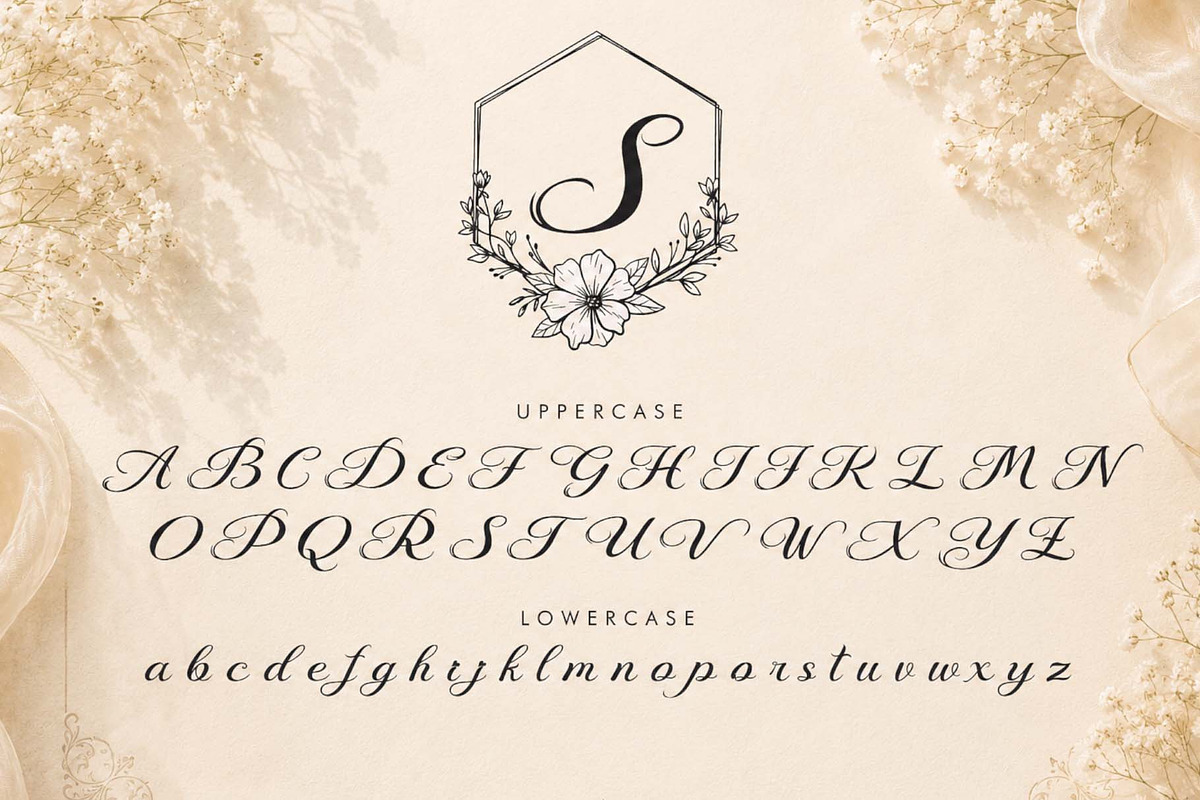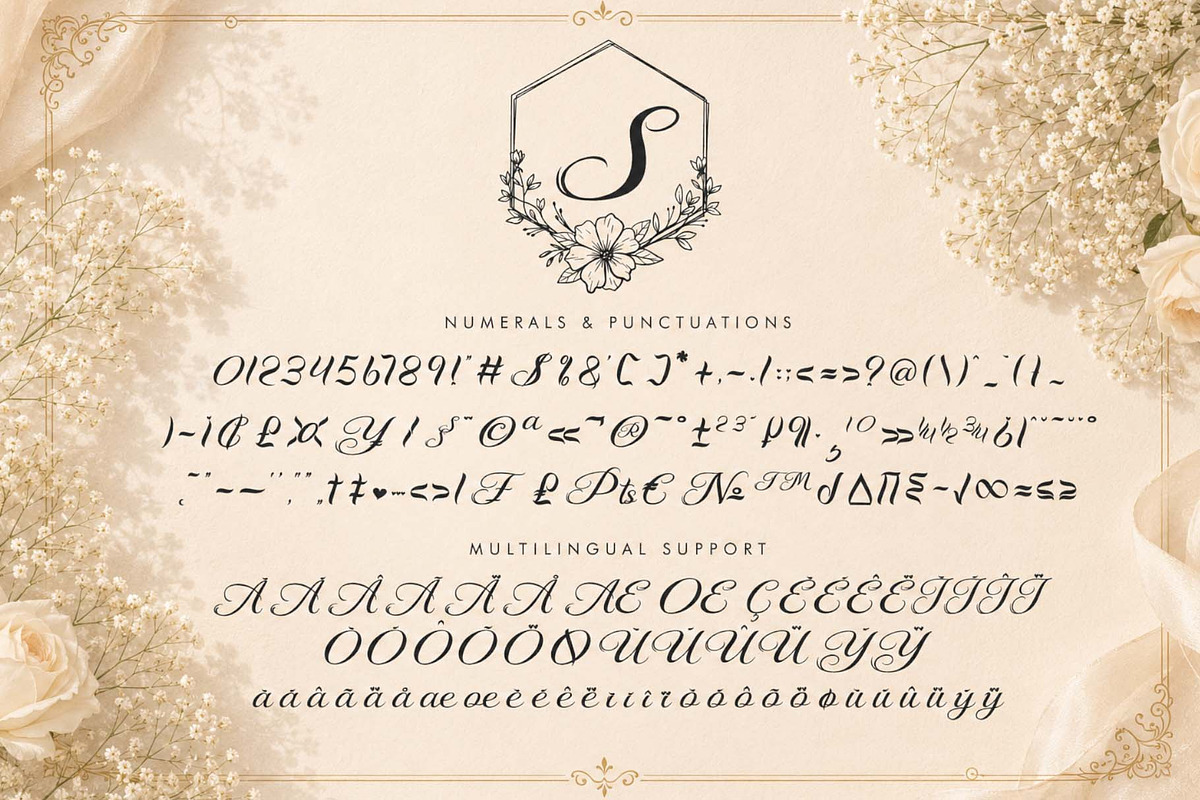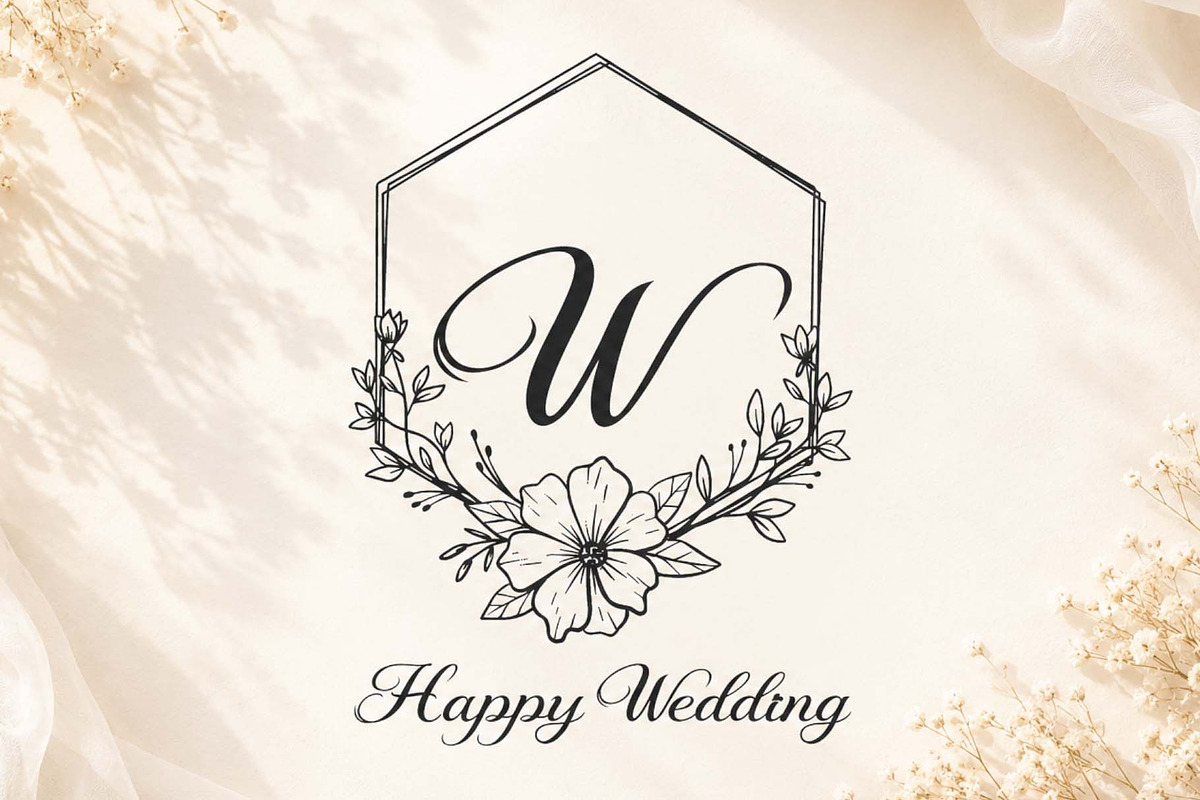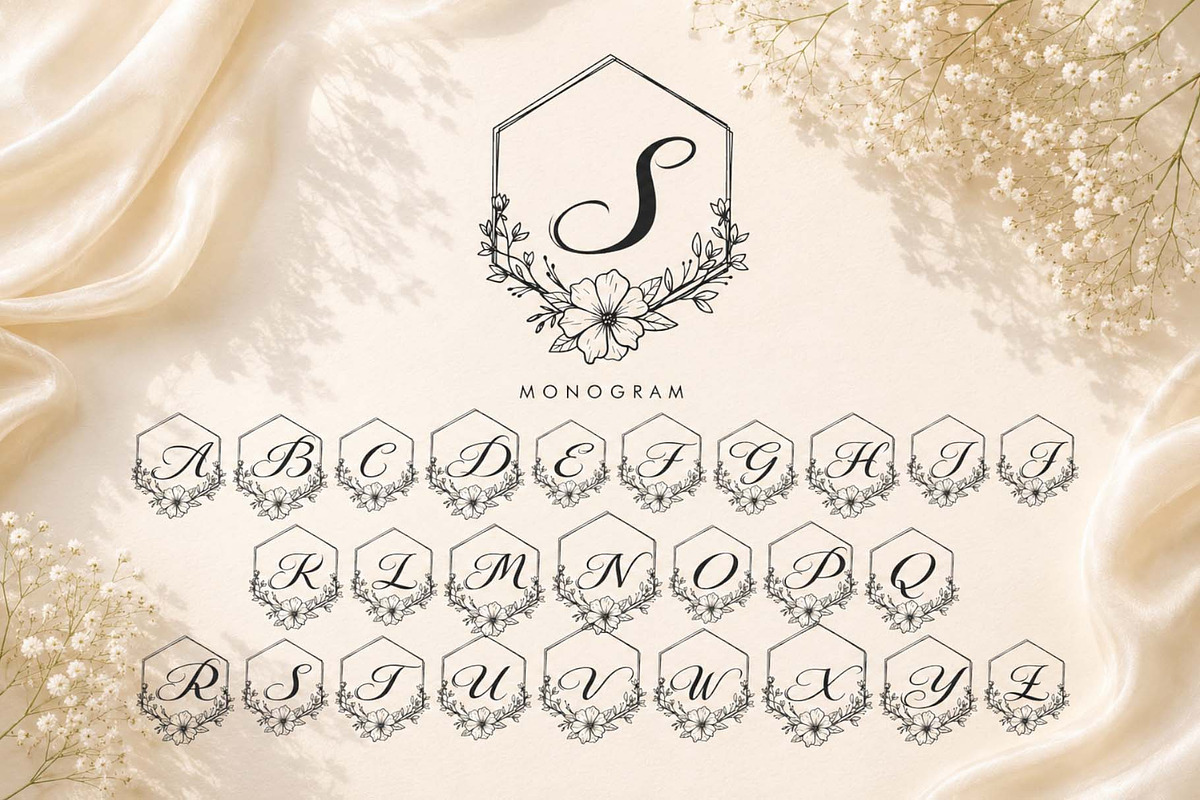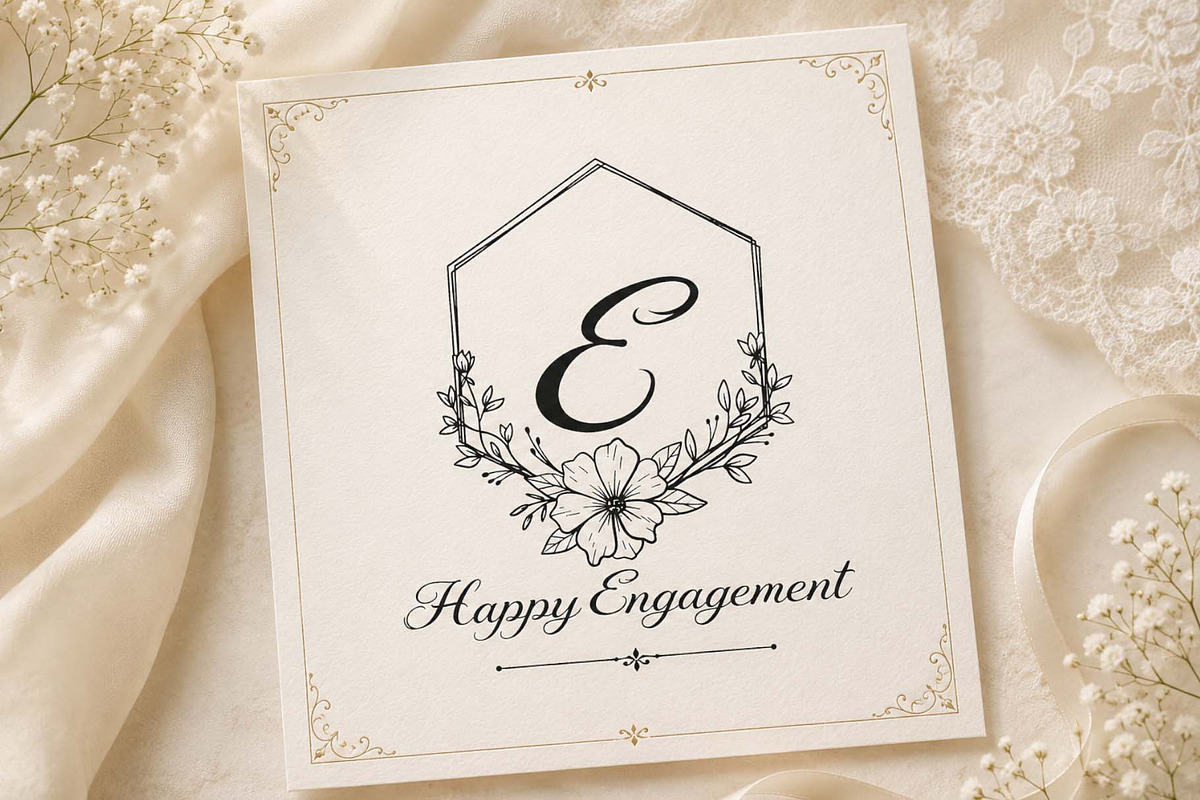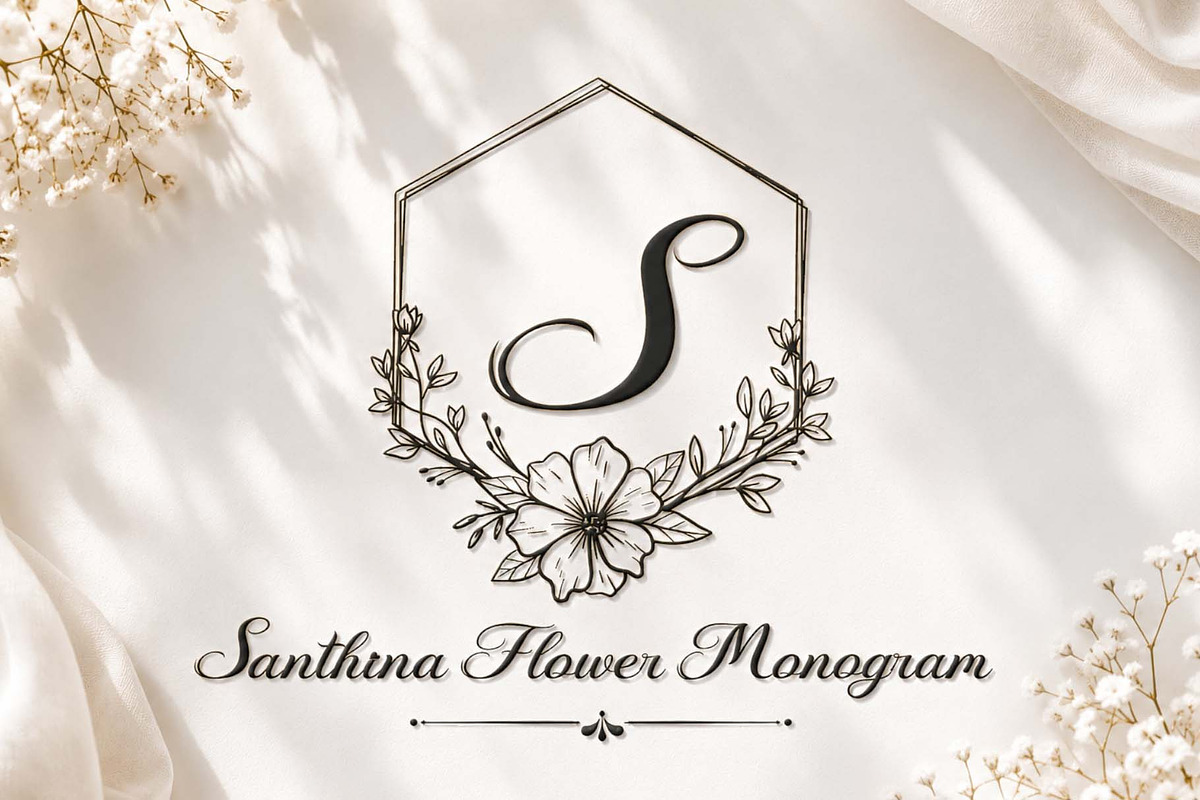
Santhina Flower Monogram
Santhina Flower Monogram is an elegant floral monogram font designed to add timeless beauty to weddings, invitations, branding, logos, and stationery. Featuring graceful script letters paired with a delicate floral frame, this font brings a touch of sophistication, romance, and luxury to any design. It features monograms, uppercase letters, lowercase letters, numbers, punctuation, and multilingual support.